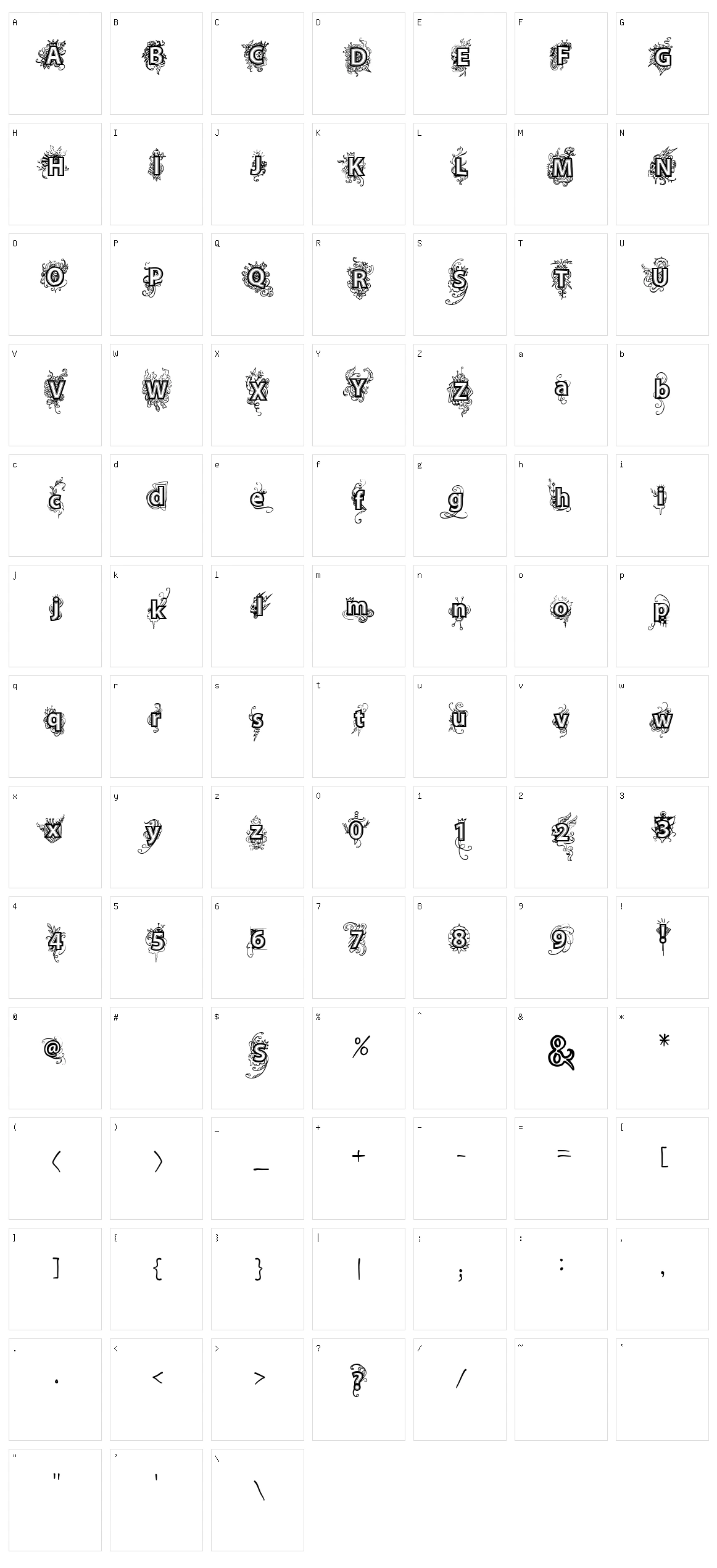
The free font VTKS Deja Vu is carefully designed by Douglas Vitkauskas, showcasing a thoughtful balance of creativity and usability and falls under the Decorative font style. When you download the ZIP file, it contains only 255.6 KB of font files, making it lightweight and quick to download. Please review the license details below to understand permitted usage and distribution rights. If license information is not available, we recommend using this font for personal projects only or contacting the author directly for commercial usage permissions.